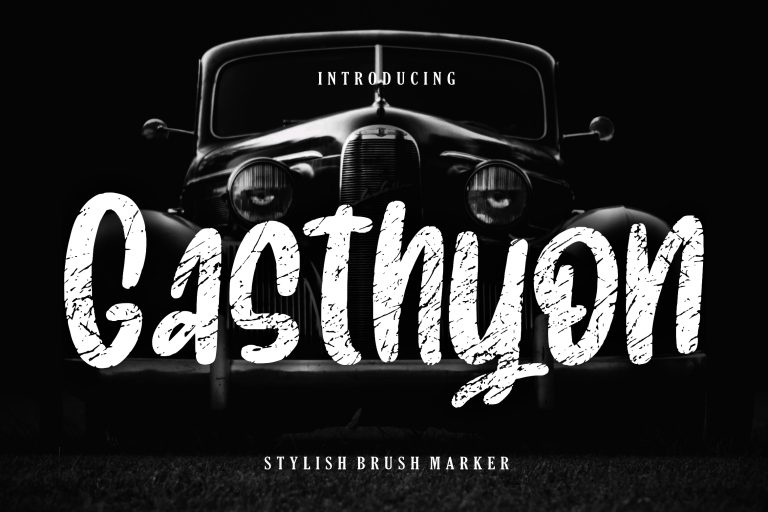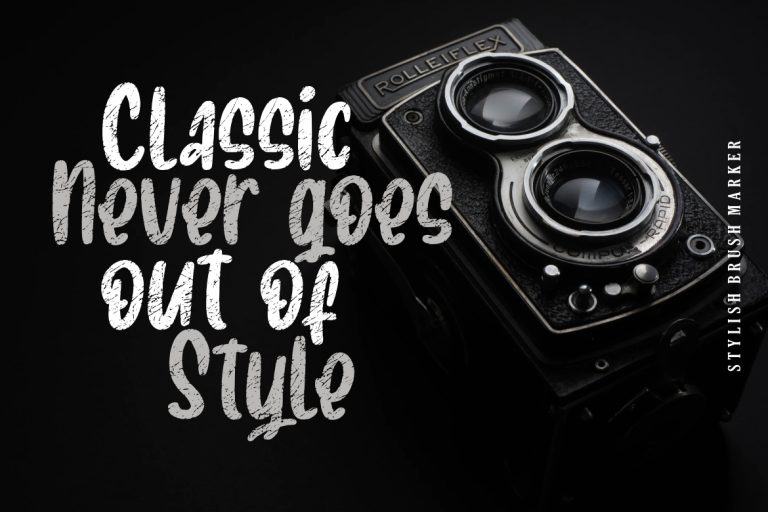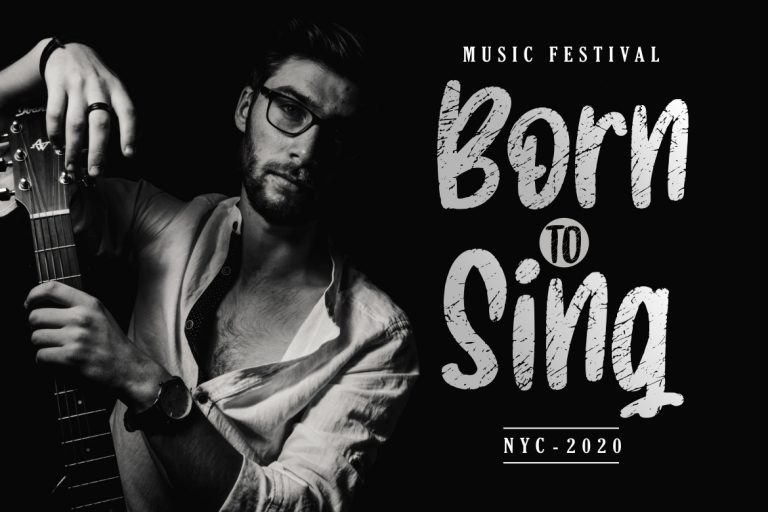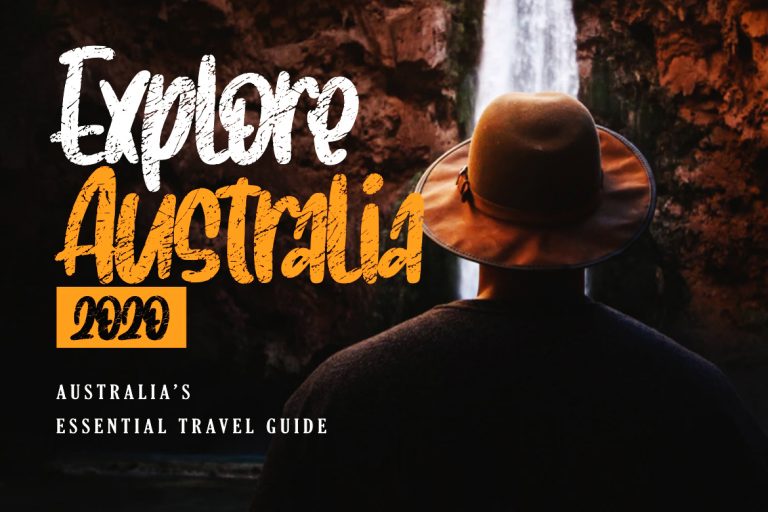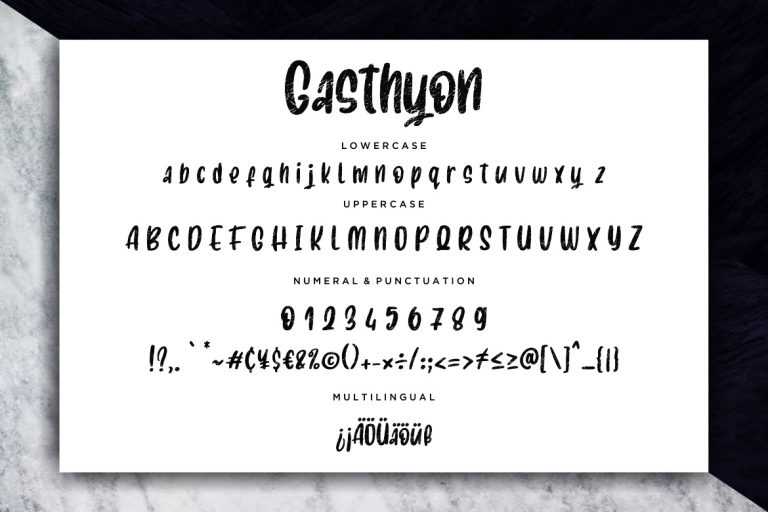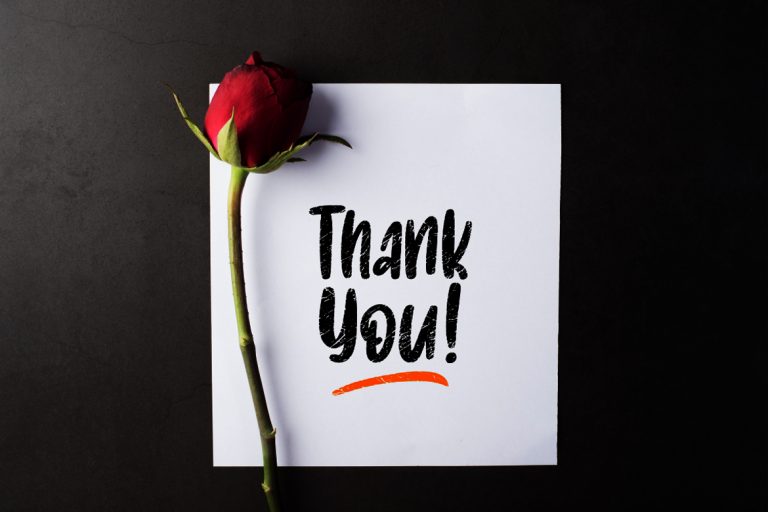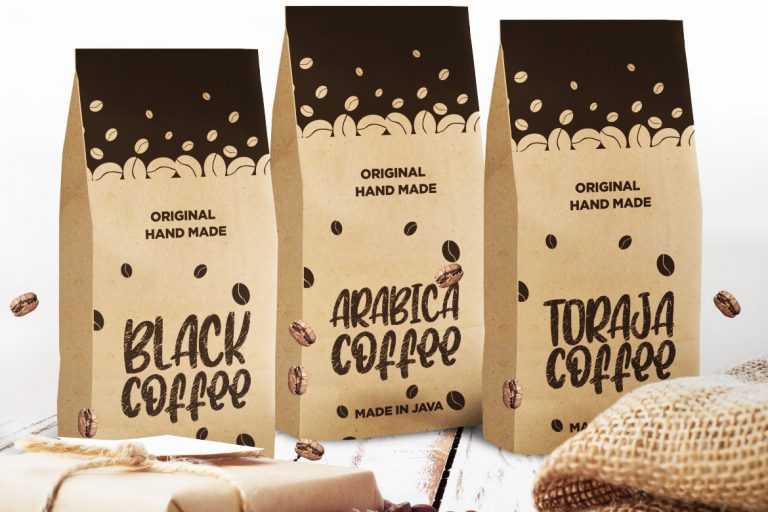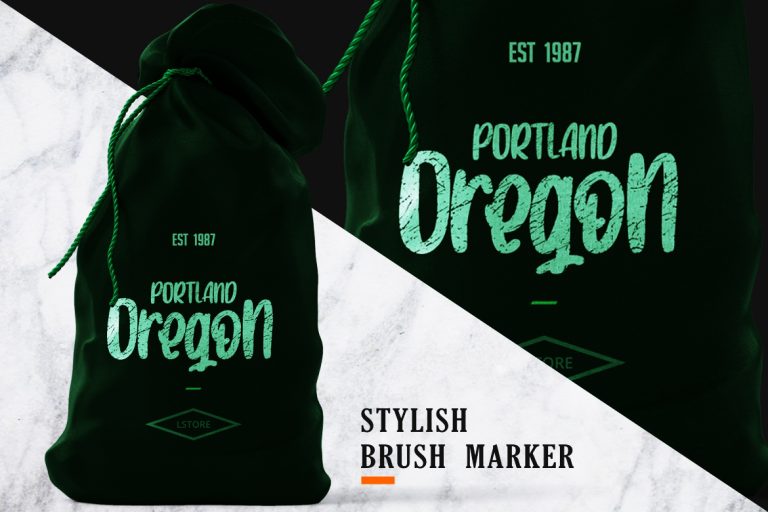
Gasthyon is a stylish brush marker font with bold and scratch style that make your latest project awesome.
Gasthyon is perfect for branding projects, logo, wedding designs, social media posts, advertisements, product packaging, product designs, label, photography, watermark, invitation, stationery and any projects that need handwriting taste.
- Fonts include multilingual support for; ä ö ü Ä Ö Ü ß ¿ ¡
Gasthyon Stylish Brush Marker